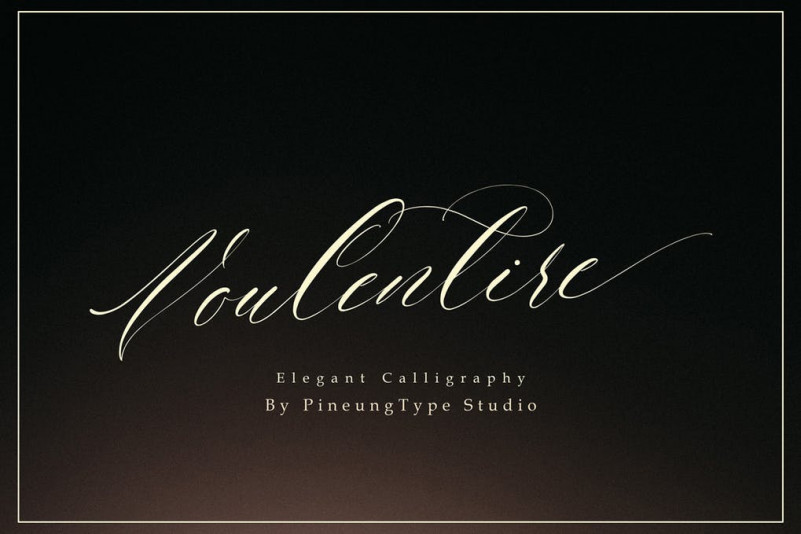
Voulentire script font font with new style, this font will perfect for many different project ex: quotes, logo, blog header, poster, banding, fashion, apparel, letter, invitation, stationery, etc…